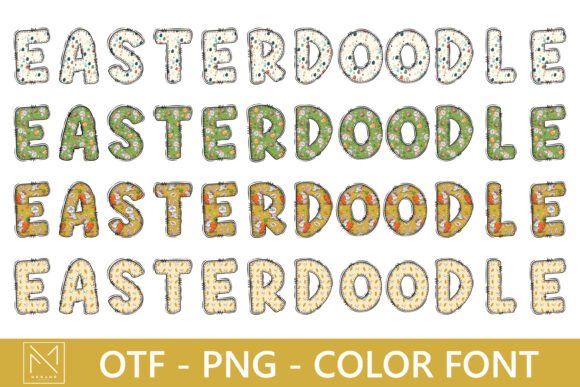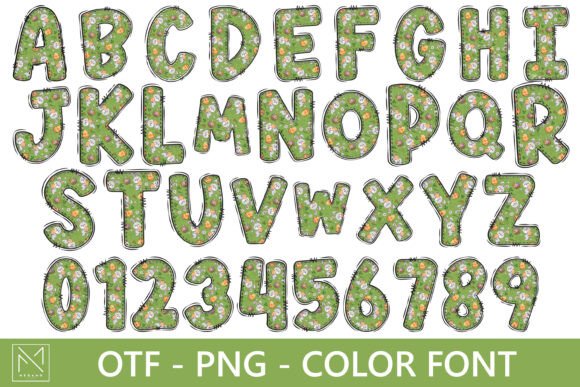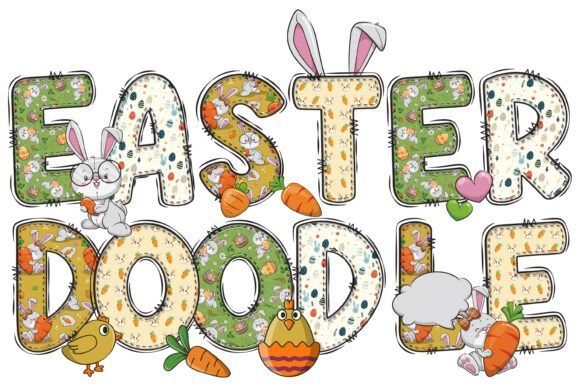
Introduction to Easter Doodle Alphabe Font
Make your Easter designs stand out with the Easter Doodle Alphabet Bundle.
This fun and playful collection is packed with everything you need to create adorable and festive projects ✔ 4 Unique Doodle Alphabet Sets – Each letter is decorated with charming Easter elements like bunnies, colorful eggs, carrots, and festive patterns.
Key Features of Easter Doodle Alphabe Font
Why Choose Easter Doodle Alphabe Font?
Easter Doodle Alphabe Font offers exceptional quality and versatility, making it a valuable addition to your design toolkit. Whether you’re creating for personal projects or commercial use, Easter Doodle Alphabe Font delivers professional results.